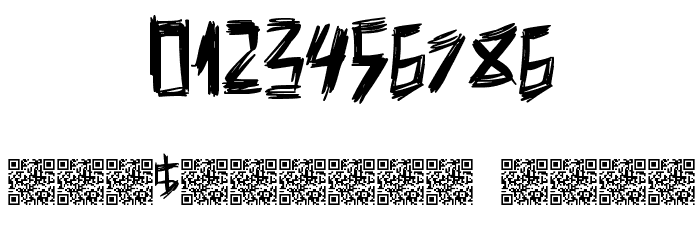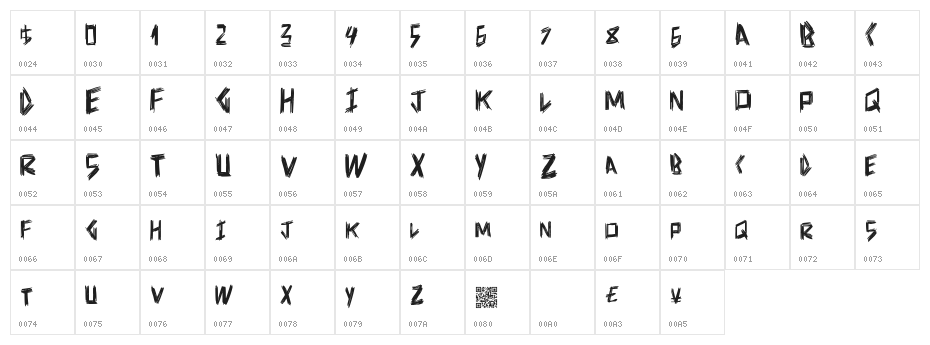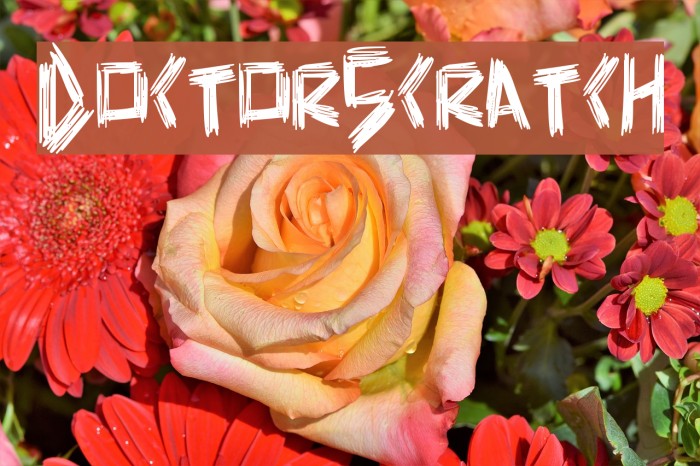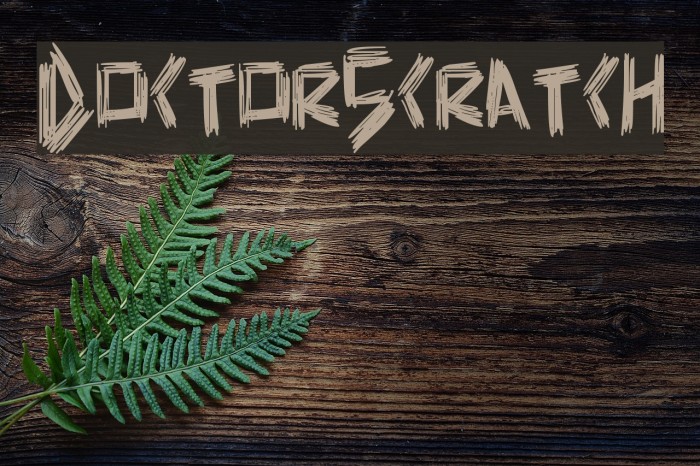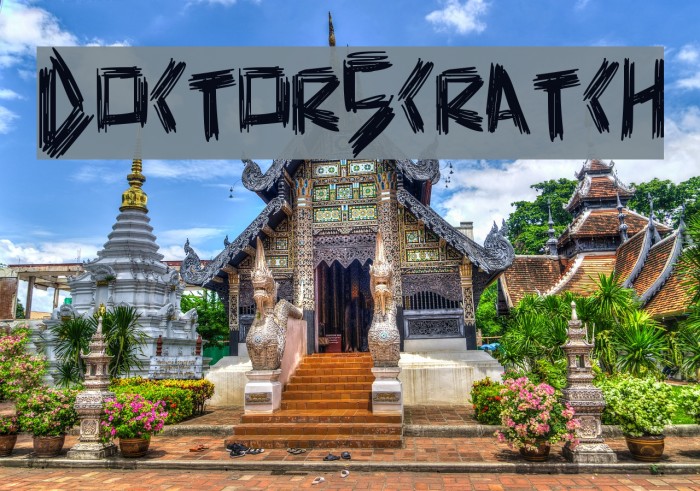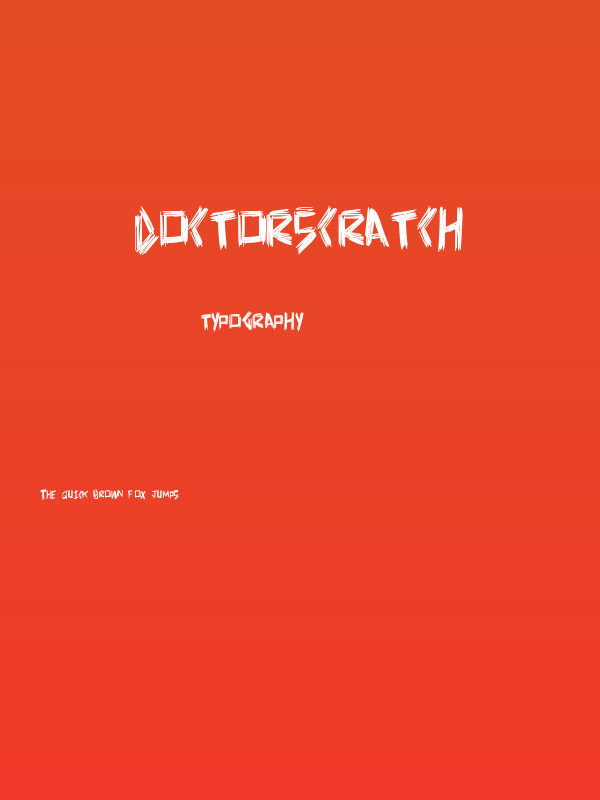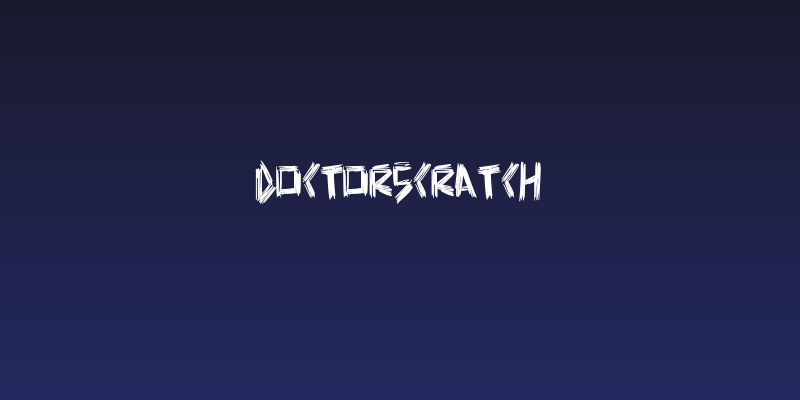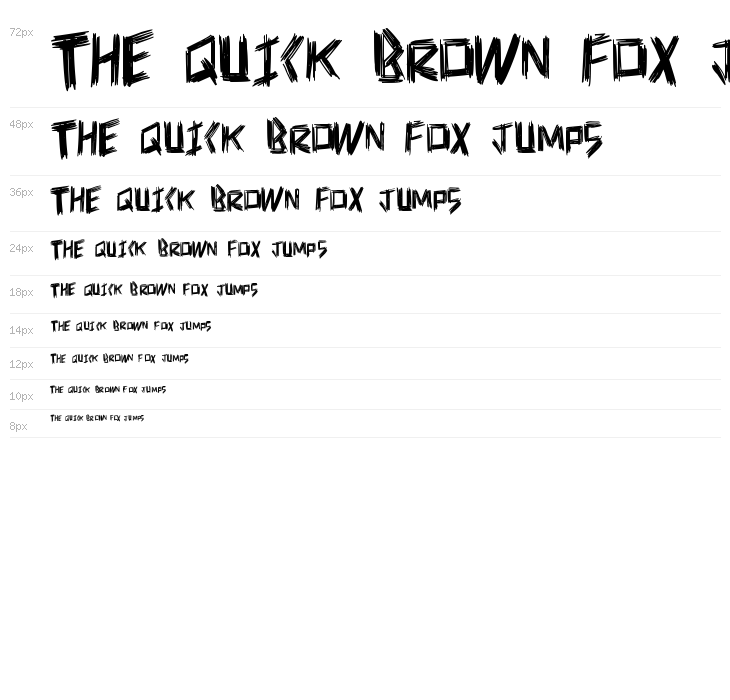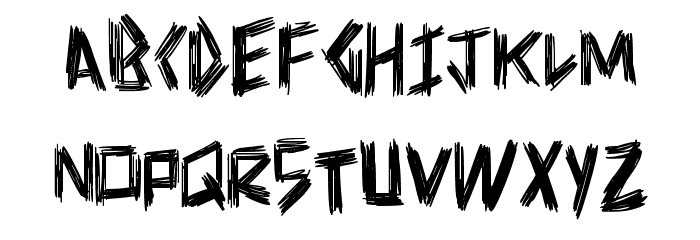
DoctorScratch Font
DoctorScratch Description
This font features a bold, edgy design with a hand-drawn, scratchy appearance. The letters are characterized by uneven strokes and jagged edges, giving it a dynamic and rebellious feel. The uppercase and lowercase letters maintain a consistent style, with the uppercase being slightly more pronounced. Numbers and special characters follow the same aesthetic, ensuring a cohesive look across all text. The overall design is reminiscent of graffiti or street art, making it ideal for projects that require a raw, energetic vibe.
| Overall Style | Modern, Edgy |
| Proposed Projects | Perfect for album covers, posters, streetwear branding, and edgy graphic design projects. |